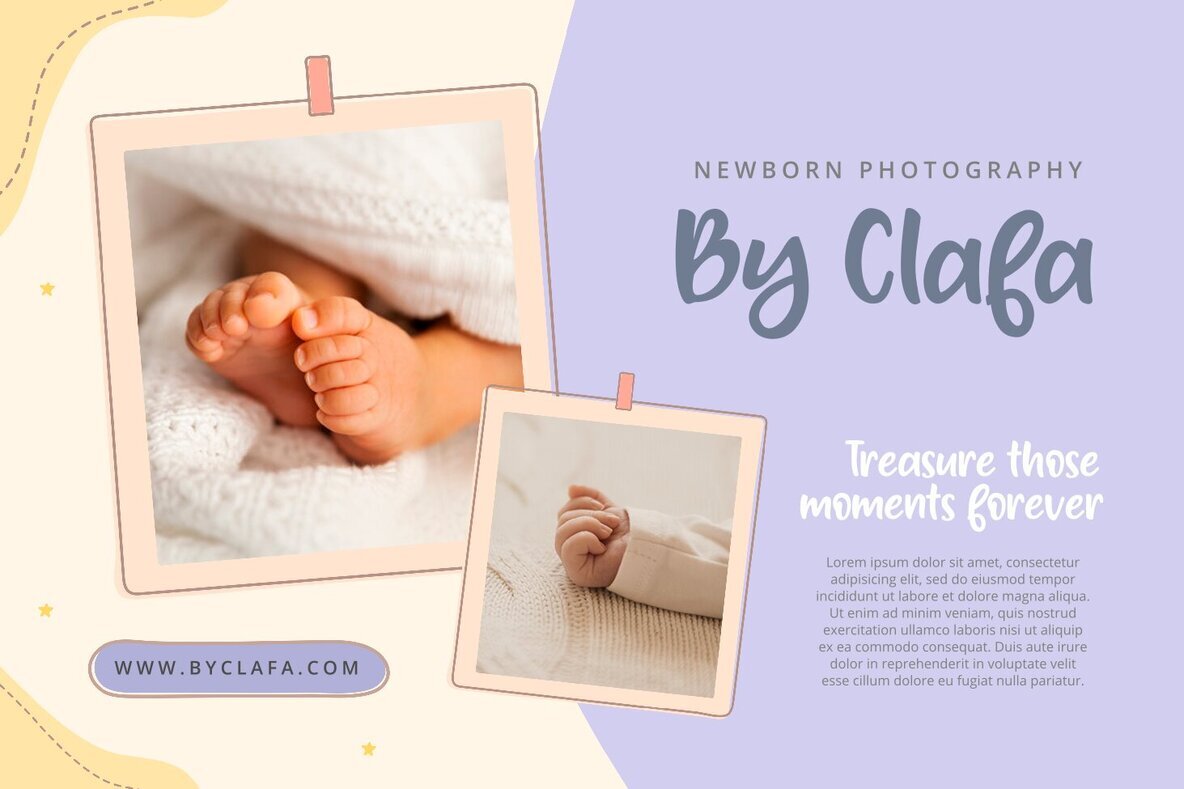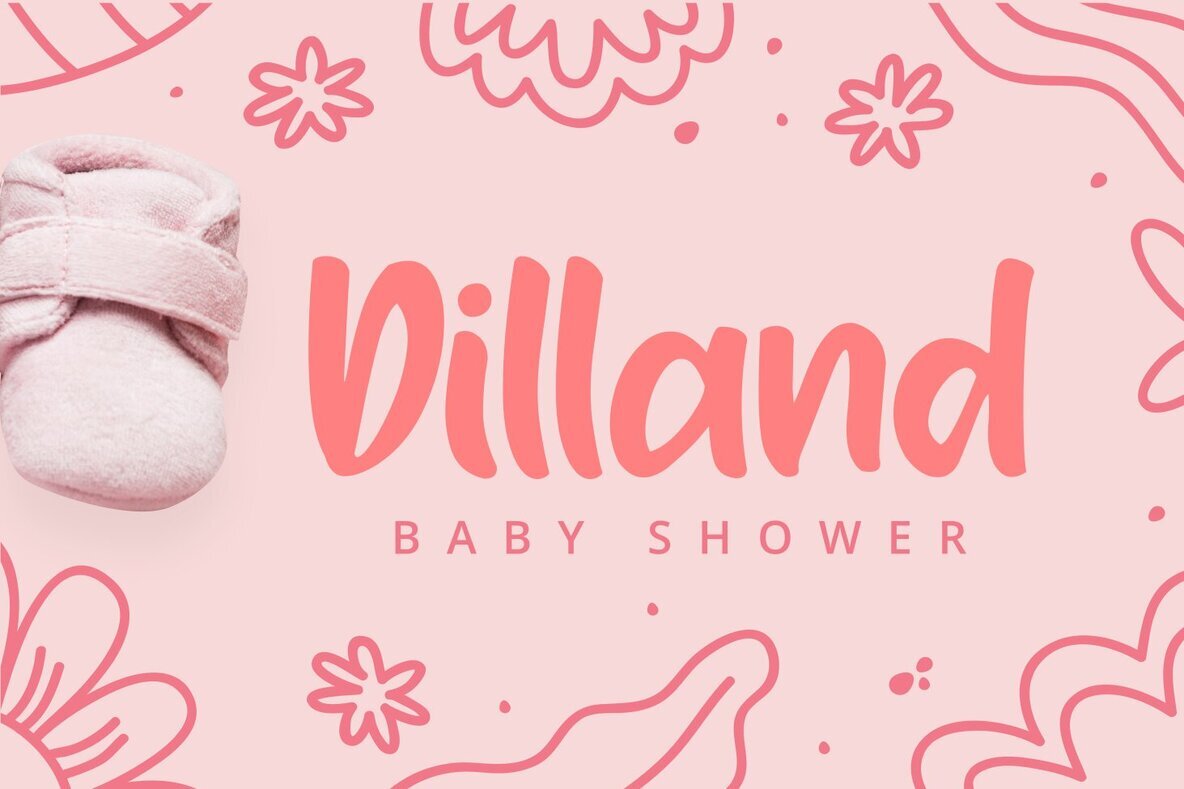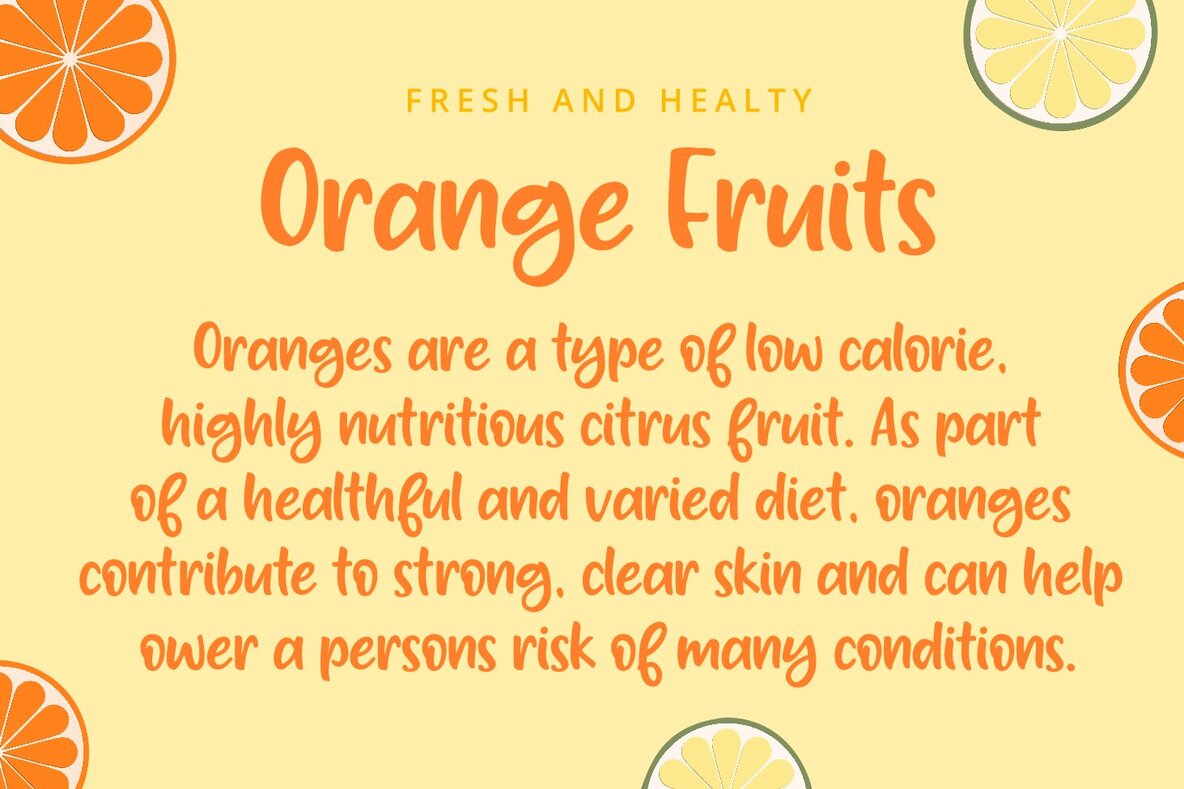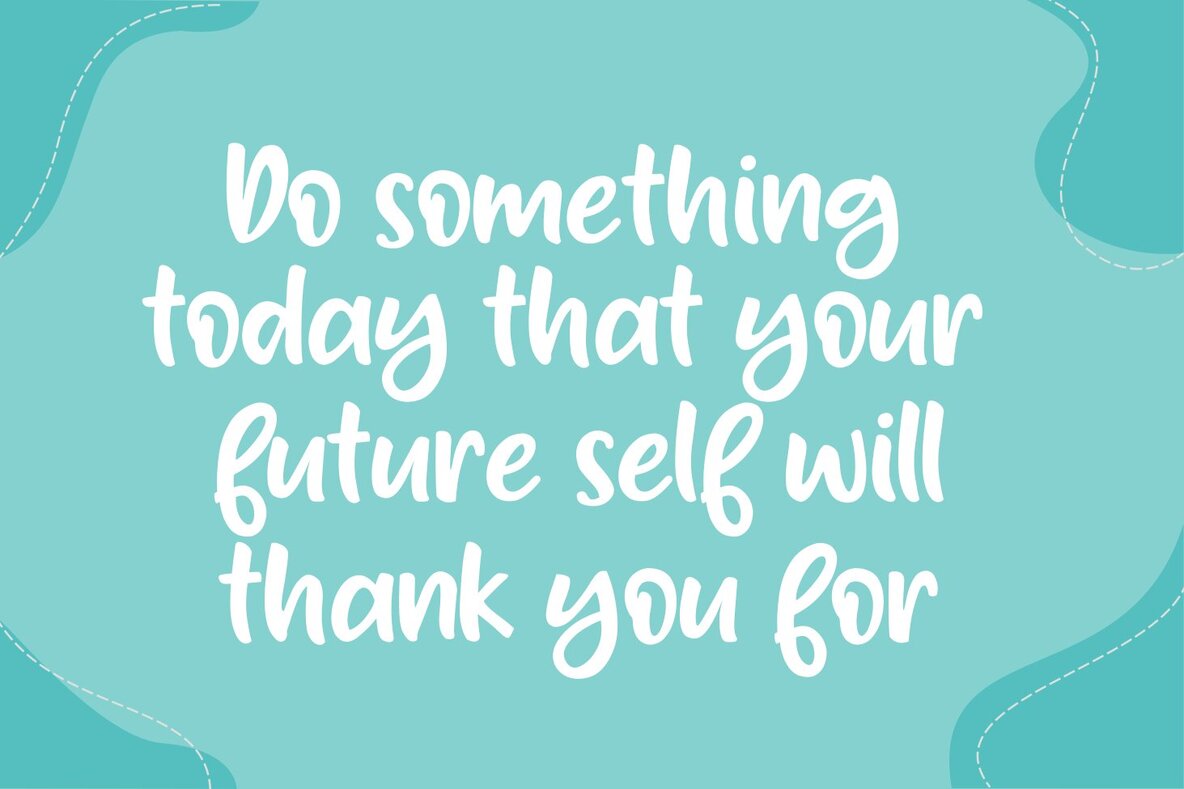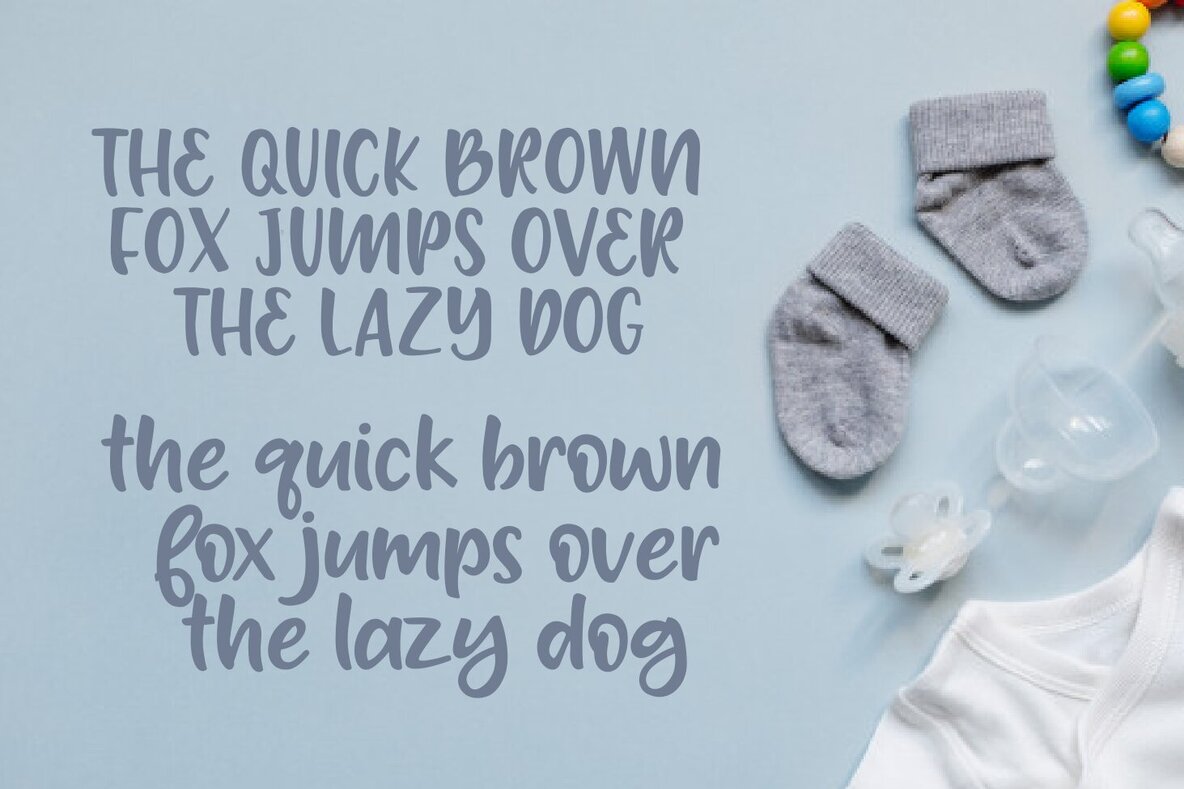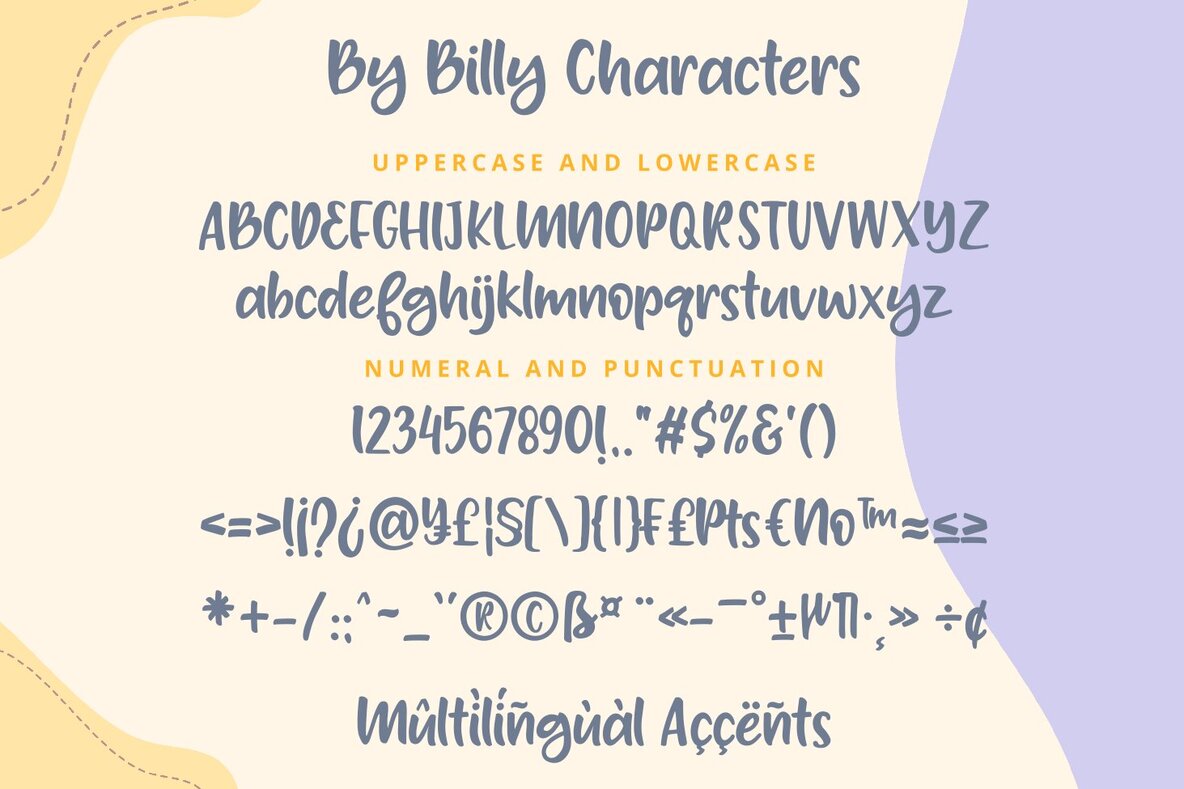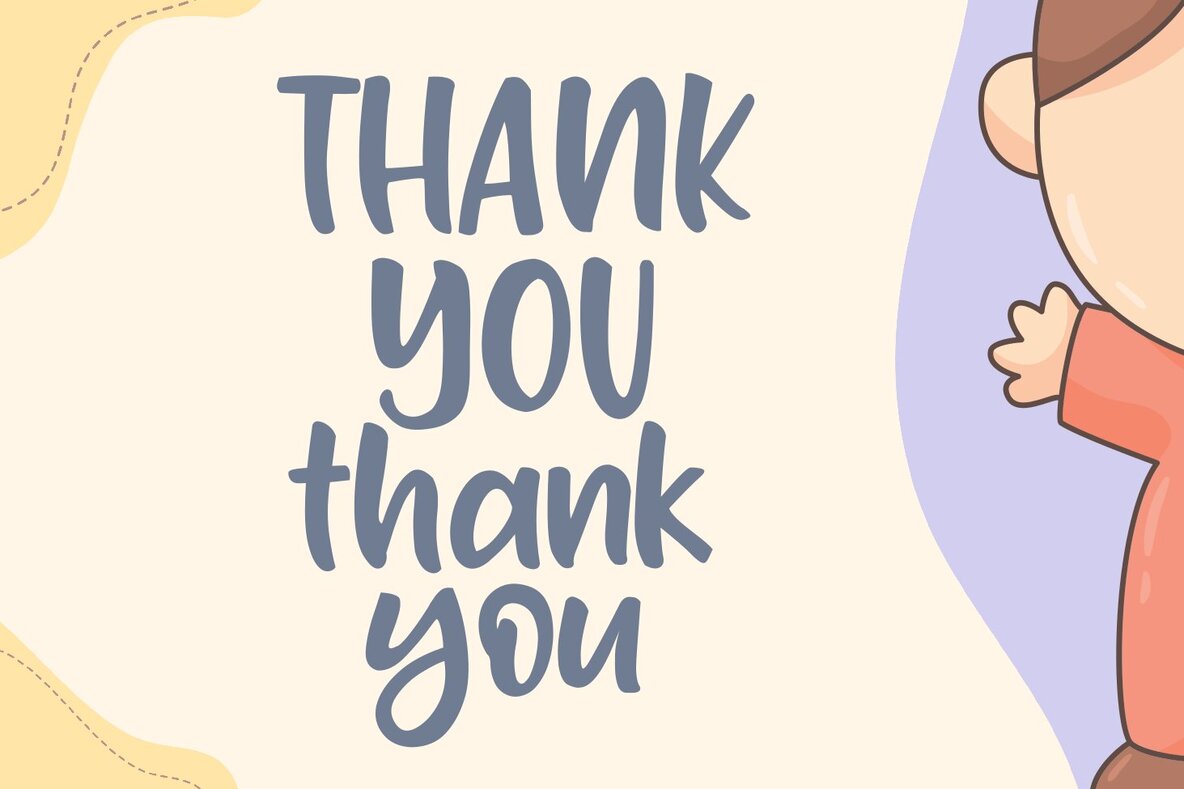
Hay Billy Font
Hay Billy
Hay Billy is a cute handwritten font known for its bouncy and charming style, making it perfect for a wide range of design projects or crafting ideas. Its versatility suits large design projects such as T-shirts, advertising, bags, quotes, food packaging, posters, fashion items, custom stickers, magazines, and more. Accessible in Adobe Illustrator, Adobe Photoshop, Adobe InDesign, and even Microsoft Word. With PUA Encoded Characters, this font is fully accessible without the need for additional design software. Multilingual support is included.Hay Billy: A Charming Handwritten Font